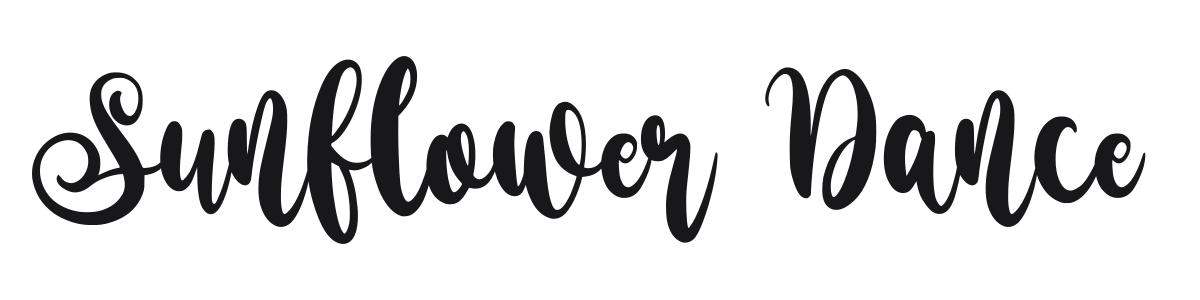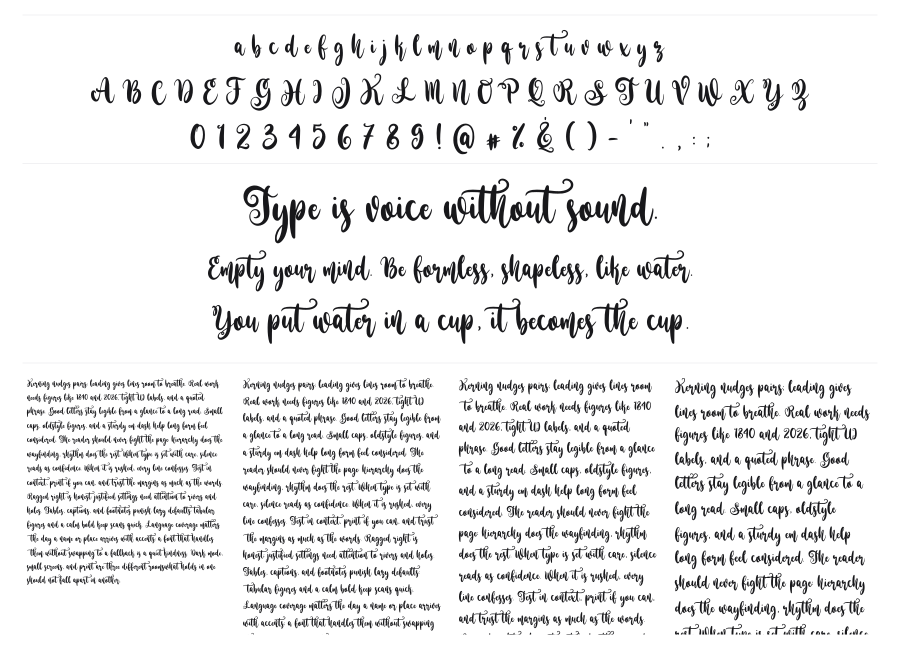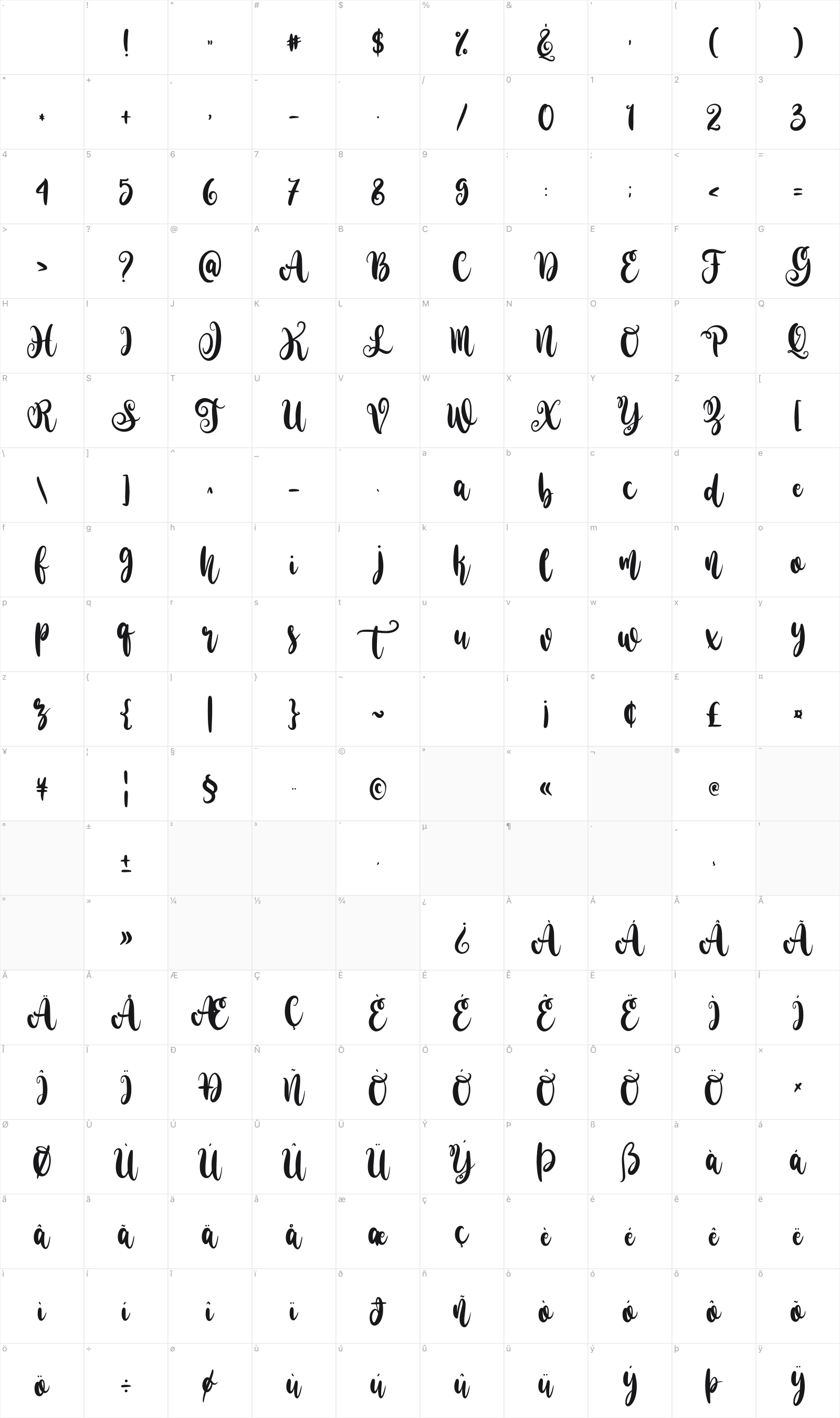
Sunflower Dance
Sunflower Dance is a bold, bouncy modern calligraphy script from Abo Daniel Studio with a lively rhythm and high stroke contrast. The animated baseline and fluid connecting strokes give it an energetic, hand-lettered feel that reads as festive and warm. It thrives at large sizes on invitations, packaging, social media graphics, and anywhere a handcrafted touch is needed.